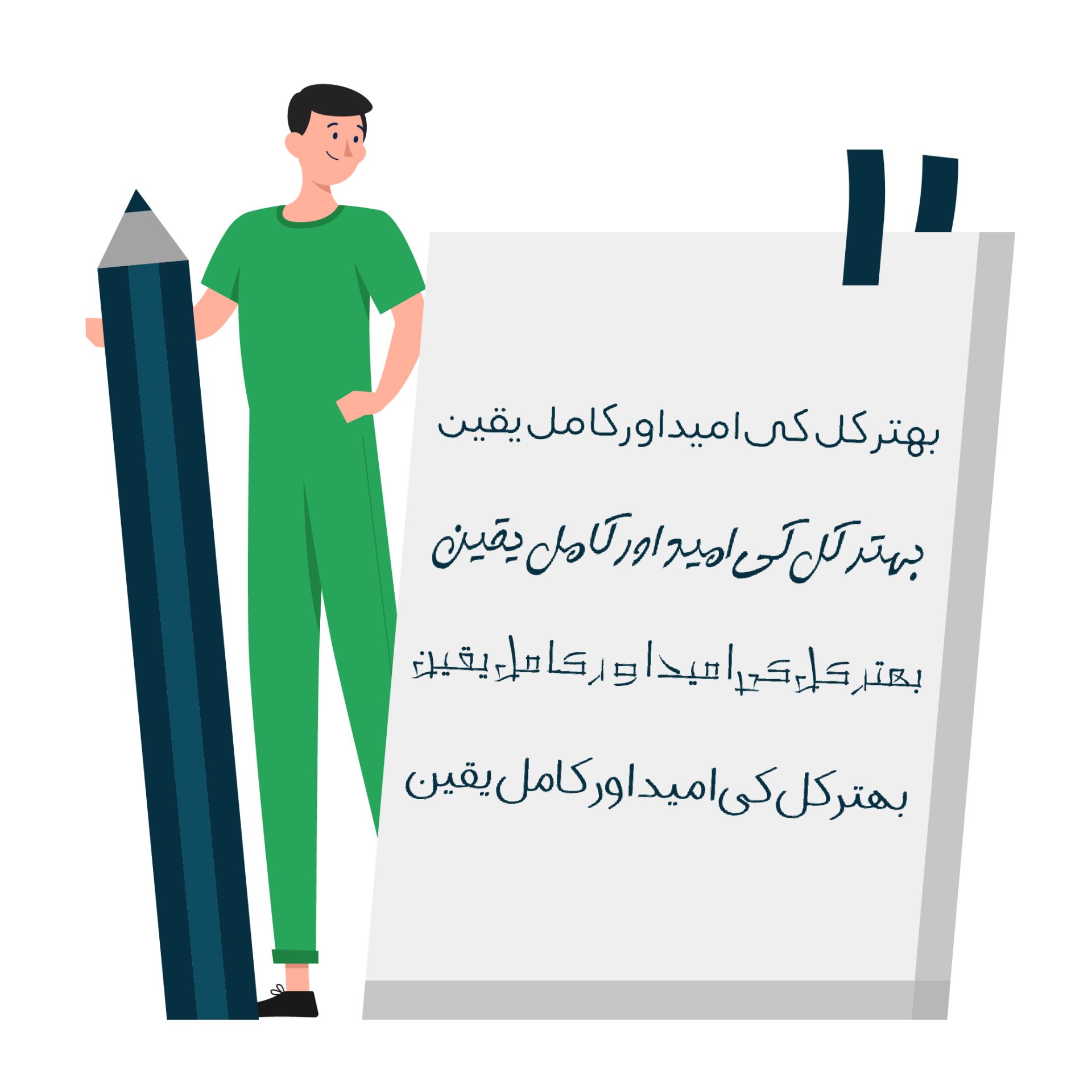
A handwritten font is one that represents the natural appearance of writing done by hand, typically with a pen, pencil, brush, or other writing tool. And when such font is used to present our elegant mother tongue, Urdu, it adds a personal touch to it. Handwritten Urdu fonts offer a unique way to capture personal expression in digitally generated text. Unlike standard fonts, which can sometimes feel robotic or generic, handwritten Urdu fonts add a touch of authenticity to the text. Such fonts create a bridge between a reader and displayed content. It not only makes your message feel more personal, but the aesthetics can evoke a nostalgic feeling. Therefore, if someone wants to connect to their audience or read at a personal level, always for typefaces with a natural feel. Many Urdu and Arabic font designers have crafted this kind of font using different inspirations and design variations, each portraying a different sensation, capturing the user’s attention. Moreover, also learn about Primary Urdu Fonts Styles, to get the idea of other handwritten and other writing styles of Urdu.
Various Handwritten Font Styles
When it comes to natural writing or handwritten fonts, we have a diverse selection of styles, each one with a unique design and texture. From the elegant flourishes of script fonts that remind us of old calligraphic techniques to the natural textures of brush lettering, these fonts bring the human touch to digital text. Similarly, Playful options like comic sans evoke a childish feel, and ink writing fonts display a unique fluid effect. Whether are looking for some elegance, informality, or a touch of personality, there’s a handwritten font to perfectly suit your Urdu design needs. You can further explore Different Handwritten Fonts Types in detail.
| Font Styles | Description | Example |
|---|---|---|
| Script | Elegant, flowing letters that resemble calligraphy | ae Tholoth, Rouqa Unicode |
| Brush | Bold, textured strokes that mimic brush lettering. | AlFars 22 Chinies, A Nafis |
| Signature | Casual and individualistic, resembling a handwritten signature. | Af-Al Nassrah, A Gam Azad |
| Monoline | Consistent line thickness throughout the letters. | Al Hemma, A Hemmat |
| Chalkboard | Rough and textured, reminiscent of writing on a chalkboard. | Arif, Kamva |
| Comic Sans | Playful and informal, often used for children’s content. | Abdo Logo, Lafeef |
| Irregular | Untidy Appearance with characters having different shapes | Al Naqaaa S, Al Naqaaa R, A Maktoob |
| Ink writing | Letters create a fluid appearance like written with ink pen. Some also include the dripping effect. | Alqalam Khalid Maqbool, FF Bouya |
The Impact a Handwritten Font Can Create on the Audience
It’s a human psyche that whenever our eyes come into contact with something familiar, our mind lingers. The same case is with the typefaces. When we display our message in a familiar style, it attracts the viewer’s attention. Naskh and Nastaliq fonts offer elegance where script fonts offers a natural touch to the text. Not only that, it makes them stay on your content or post and, in return, benefitting you in one way or another. Urdu fonts have the ability to add a unique individuality to the text. Here’s how they achieve this:
Authenticity
Handwritten Urdu fonts mimic the natural variation and imperfections found in actual handwriting. This authenticity adds a welcoming or friendly feel to the text, making it feel more personal and relatable.
Personal Touch
Each handwritten Urdu font carries the unique style and personality of its creator. Whether it’s the slant of the letters, the thickness of the strokes, or the overall flow of the text, handwritten fonts reflect the personal expression of the font designer who created them.
Emotional Connection
Handwriting is often associated with emotions and personal experiences. When digital text is presented in a handwritten font, it can create a feeling of nostalgia, forming a deeper connection with the reader.
Versatility
Handwritten Urdu fonts come in a variety of styles, ranging from elegant and refined to playful and lively. This diversity allows them to be used in different contexts, from formal documents to casual communications, and so on.
Design Applications: Where Handwritten Urdu Fonts Can Shine
Choosing a design that can display your intention without needing long explanations is a modern marketing technique. A font or style is the face of your content or branding. If it offers a natural feel, people will be attracted to it. Here are some ways hand writing or script Urdu fonts can increase the appeal of your design projects. Moreover, you can explore further our category of Handwritten Urdu Font, to get more like this.
Invitations and Announcements
Handwritten Urdu fonts can add a special touch to wedding invitations, birthday cards, or event flyers. The informal and personal feel makes them ideal for creating a heart-warming welcoming feel.
Personal Touch for Marketing
Handwritten fonts have the ability to add warmth and personal appeal to brand logos, packaging, and marketing materials. They can perfectly make a brand appear more relatable or approachable, forming a deeper connection with your target audience.
Handwritten Urdu Fonts in Packaging
Handwritten Urdu fonts can also add a unique touch to packaging design like in artistic products or local brands. The fonts can highlight the handcrafted nature of the product perfectly. Using handwritten Urdu fonts for your product package is a calculated way to gain attention. Such techniques are often used by international brands to promote their products on a regional or local level.
Storytelling and Poetry
In the continuously growing world of social media, handwritten Urdu fonts can help your content stand out. They can make your posts feel more personal and engaging, increasing the audience interaction.
Social Media Engagement
What’s the perfect way of showing your poetry or creative writings other than a font with a natural fee? The connection between Urdu script and poetry makes handwritten fonts a perfect choice for crafting a visually appealing display of Urdu poetry or prose.
Restaurant Menus and Signage
Restaurants serving Pakistani or Indian cuisine can use handwritten Urdu fonts for their menus and signage to create an ambiance that reflects the cultural heritage of the food. This adds to the dining experience and appeals to customers who value cultural authenticity. Urdu-speaking communities feel valued with this gesture,
Bottom Line
To create a relationship with your target audience or viewers, selecting visual elements that are personal to your end users, helps not only to gain their trust but it can result in high reach. Such design elements are fonts, styles, color combinations, some slogans or creative patterns, and more. All these thing can boast your design and its appeal. For our local audience, a message displayed in Urdu will carry more weight that some other language. Moreover, you can enhance the appeal of your design by using different handwritten fonts. These natural fonts, makes your message feel more personal and relatable. Not only our minds comprehend the message easily but the aesthetics seems more real and approachable. At urdufonts.com you can find a range of such fonts with different variations for various design needs. These fonts belonging to different categories displays your message with a warmth of individuality. So, visit Urdufonts.com and choose and download a handwritten Urdu font that speaks to you.